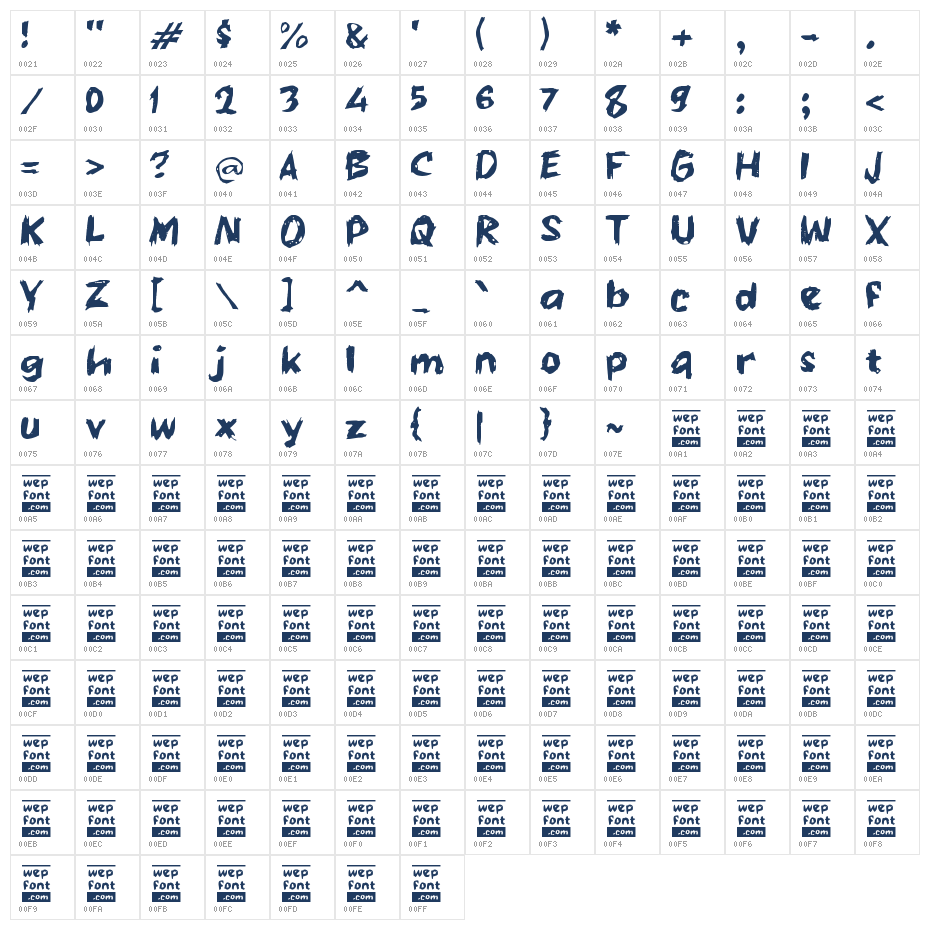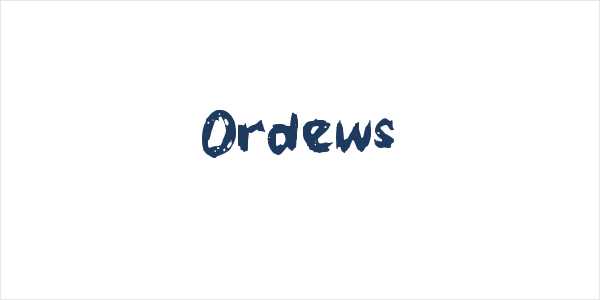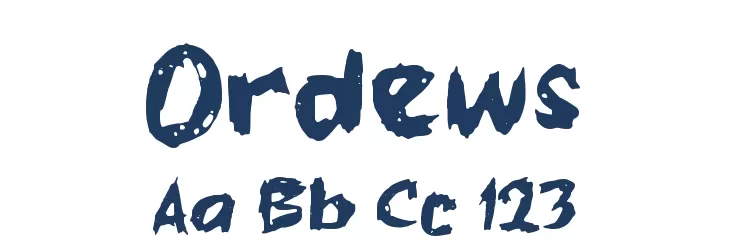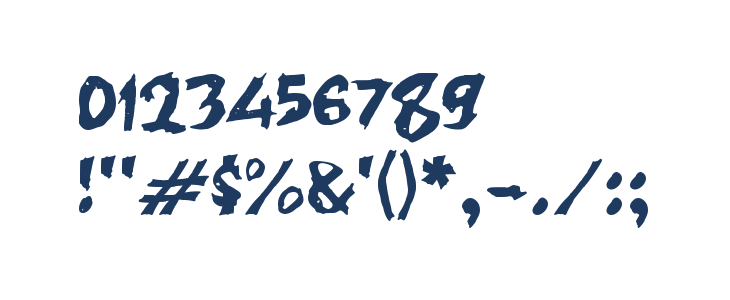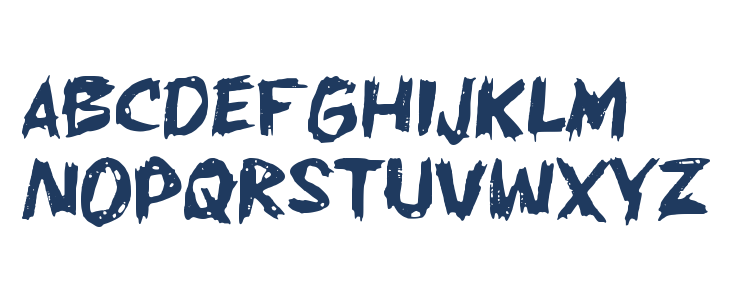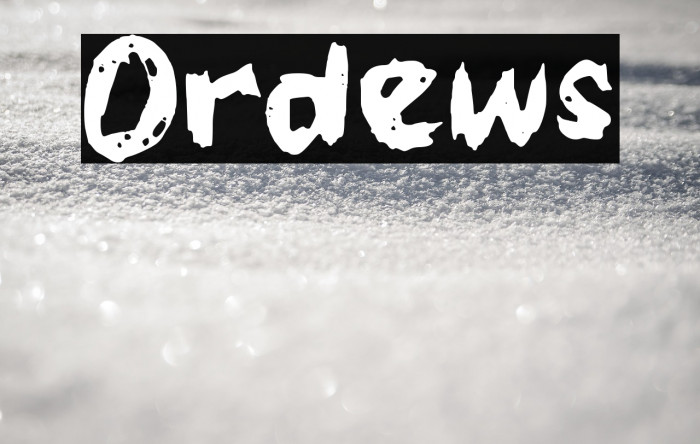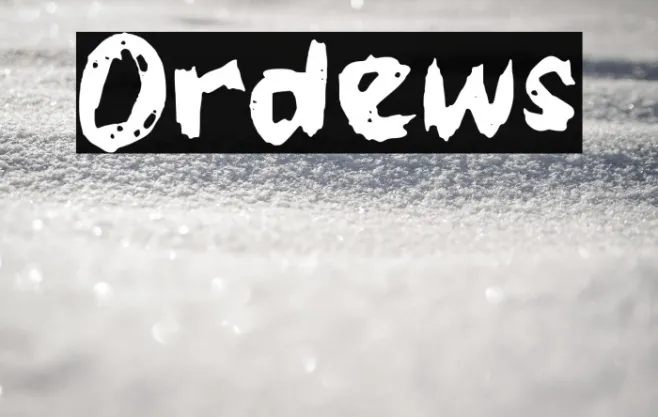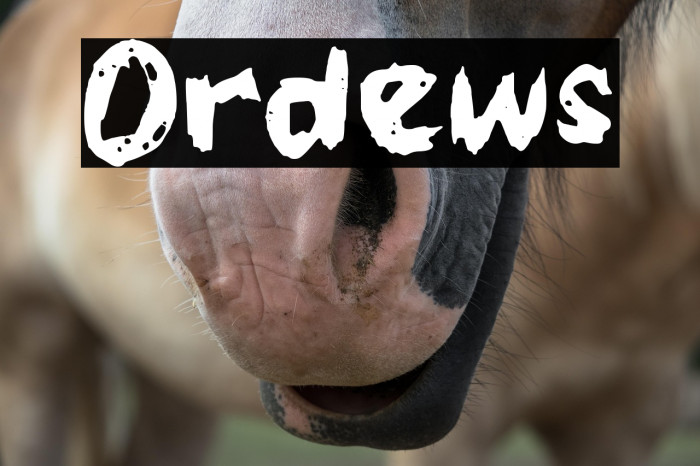
Ordews Font
Ordews Description
A bold, brush-stroke style font with a rough, textured appearance, giving it an energetic and informal look.
| Overall Style | Casual, Artistic, Handcrafted |
| Use Case | Headlines, Posters, Logos, Creative Projects |